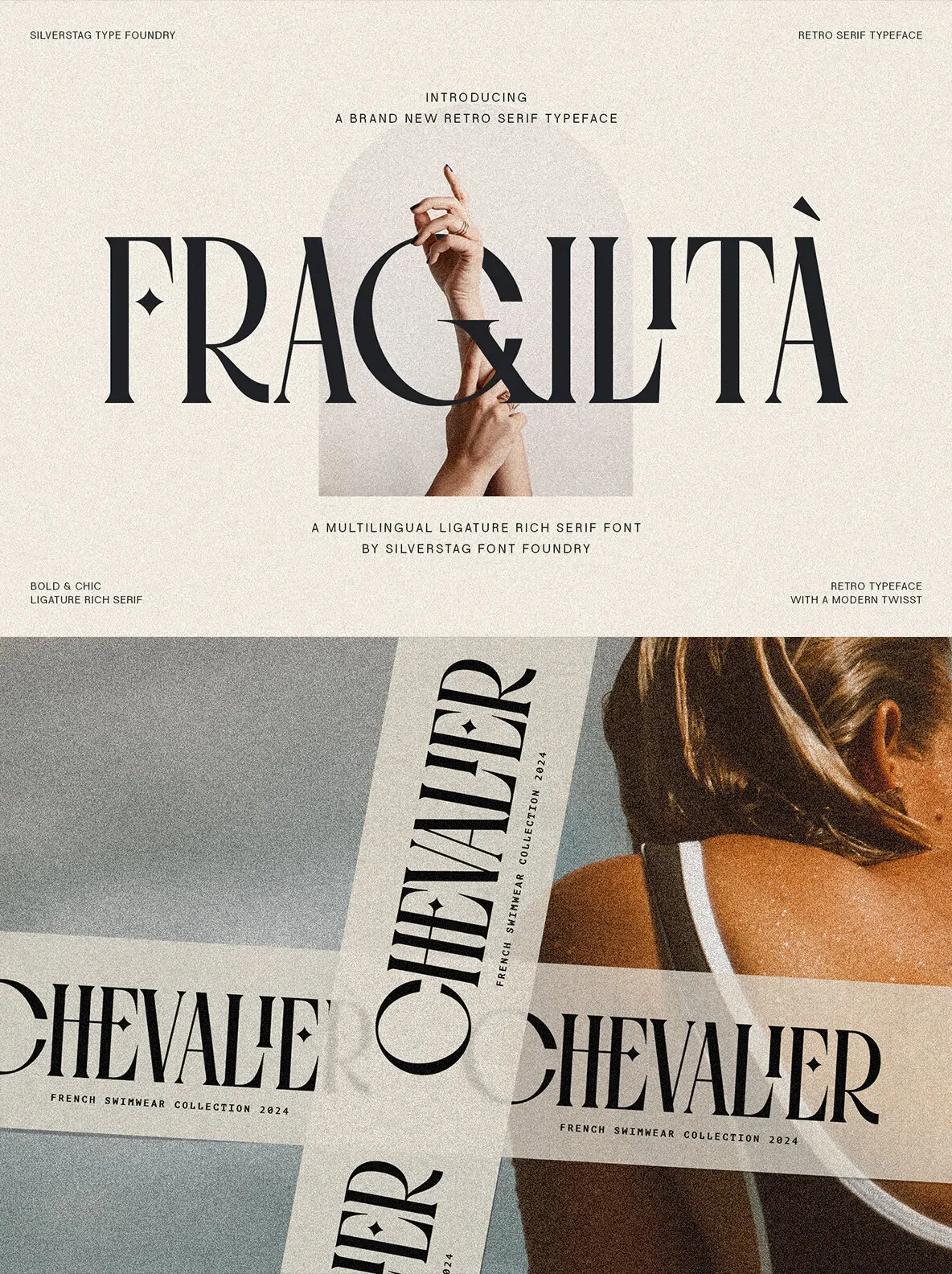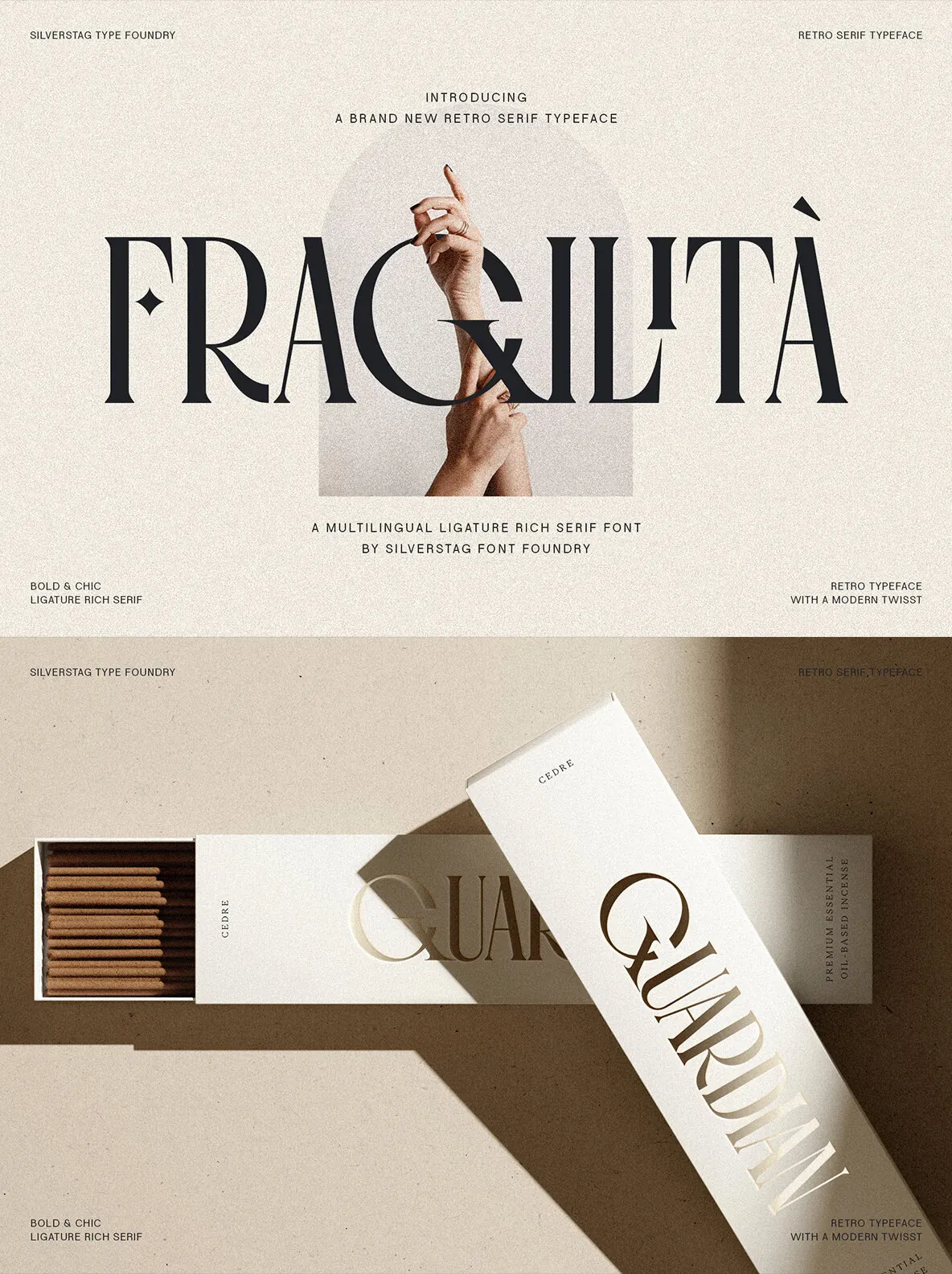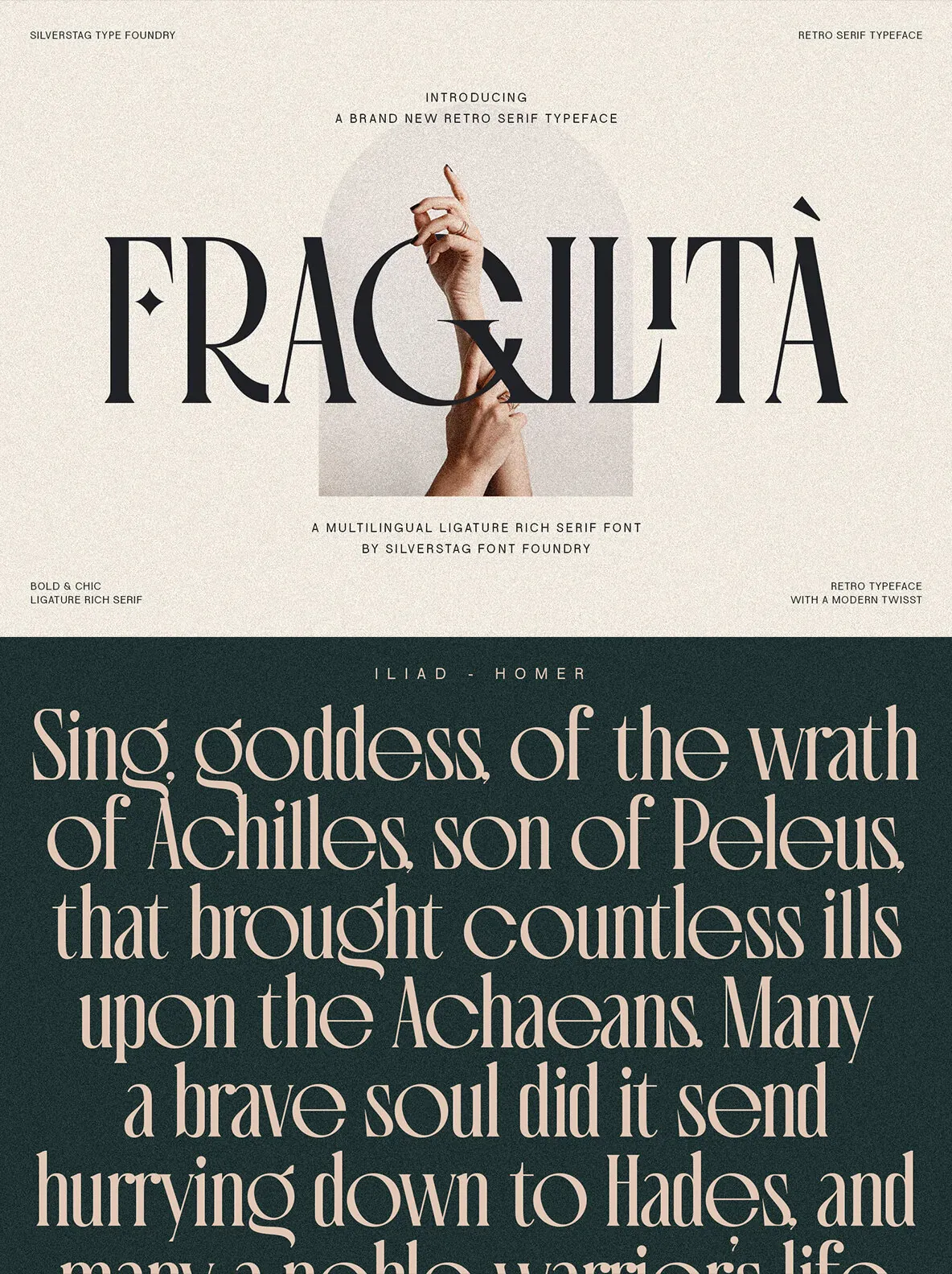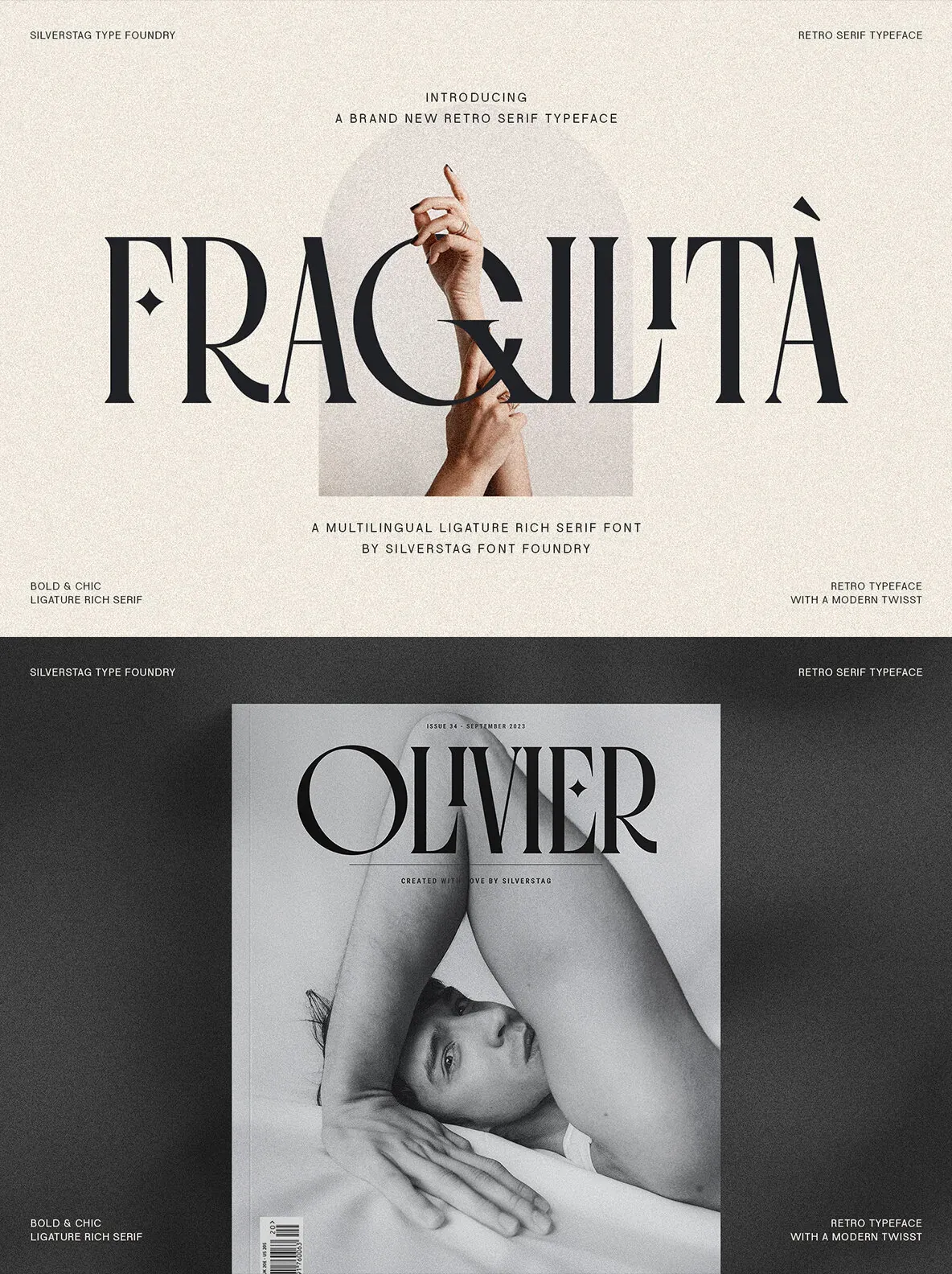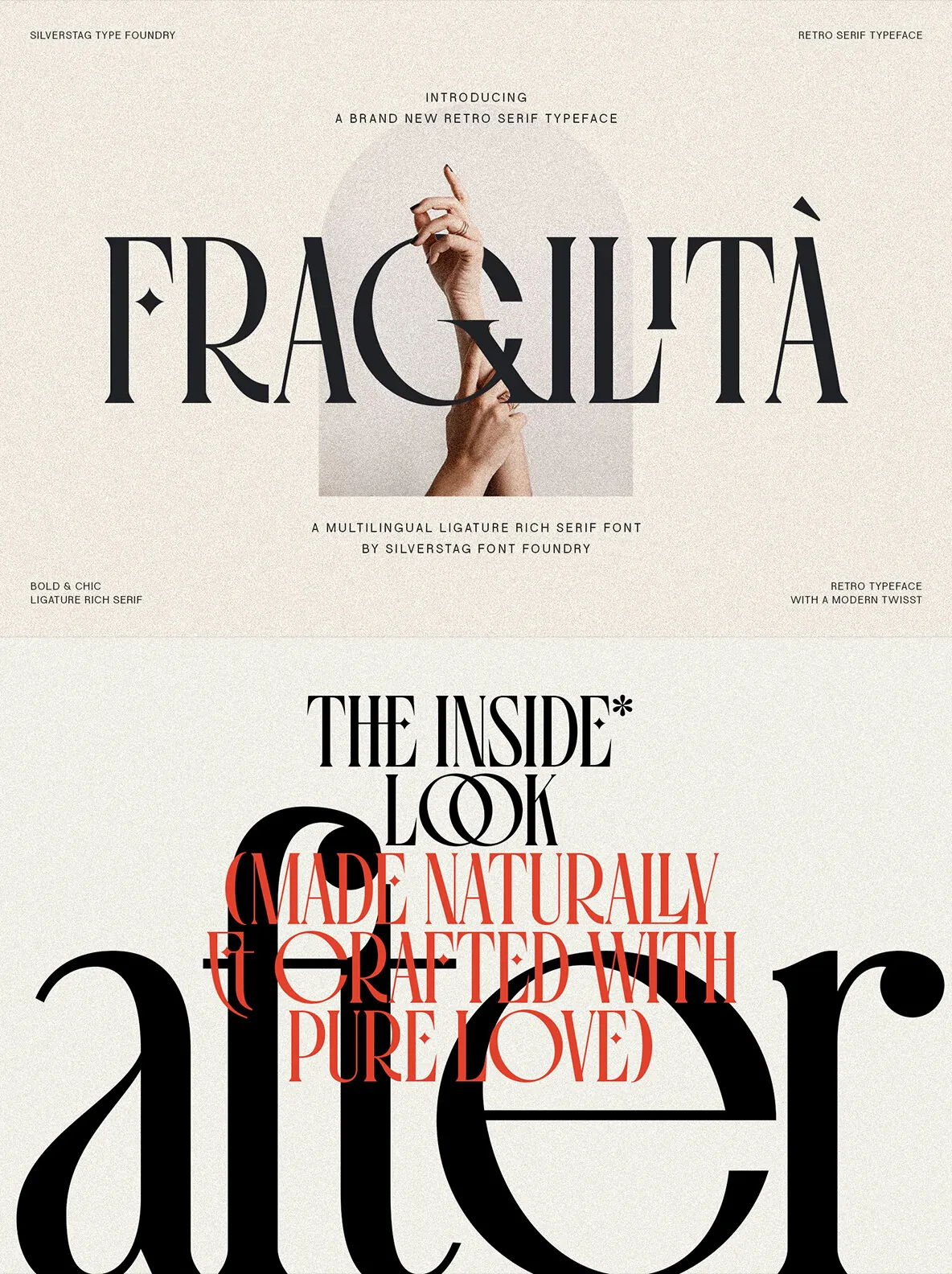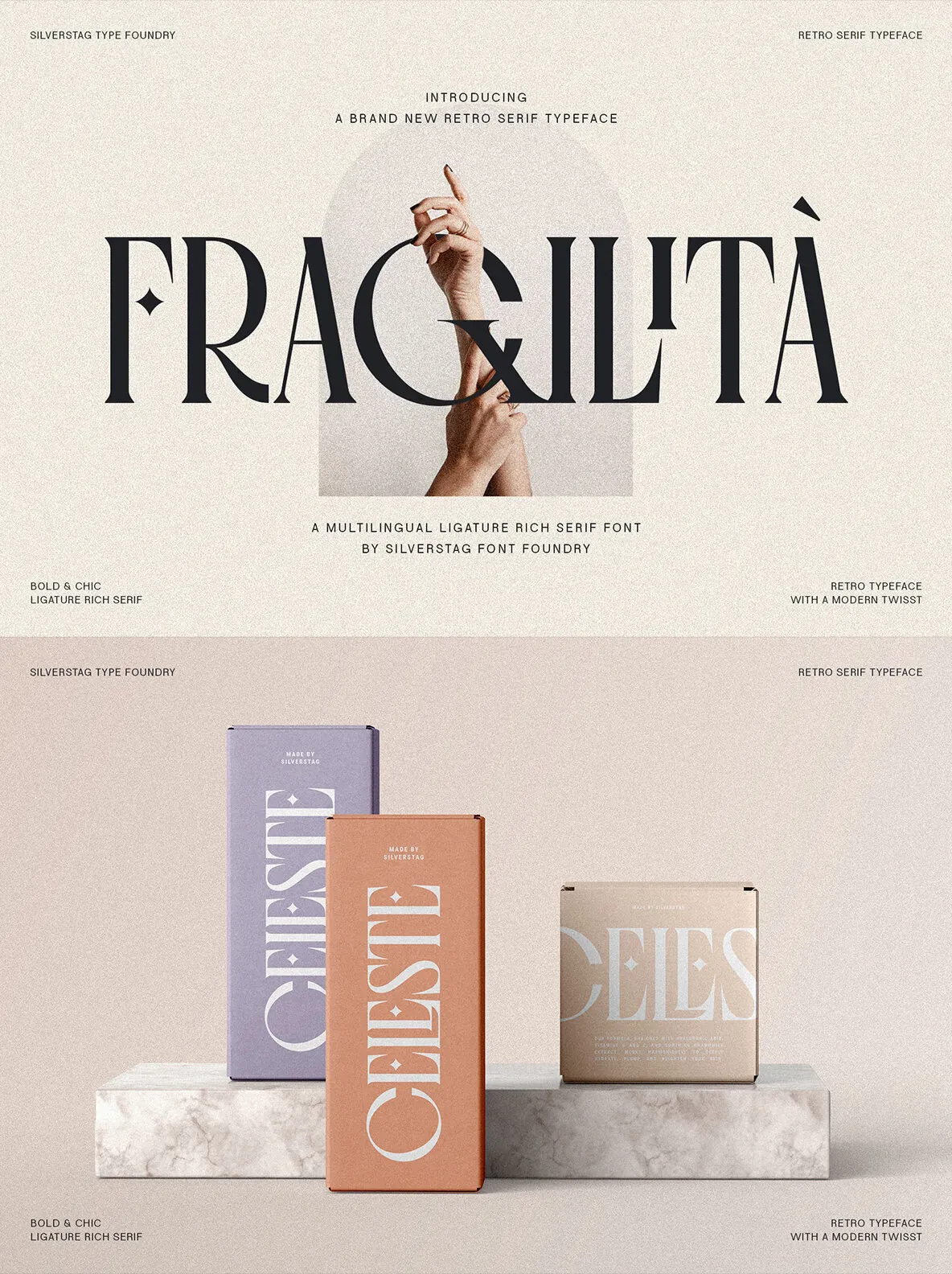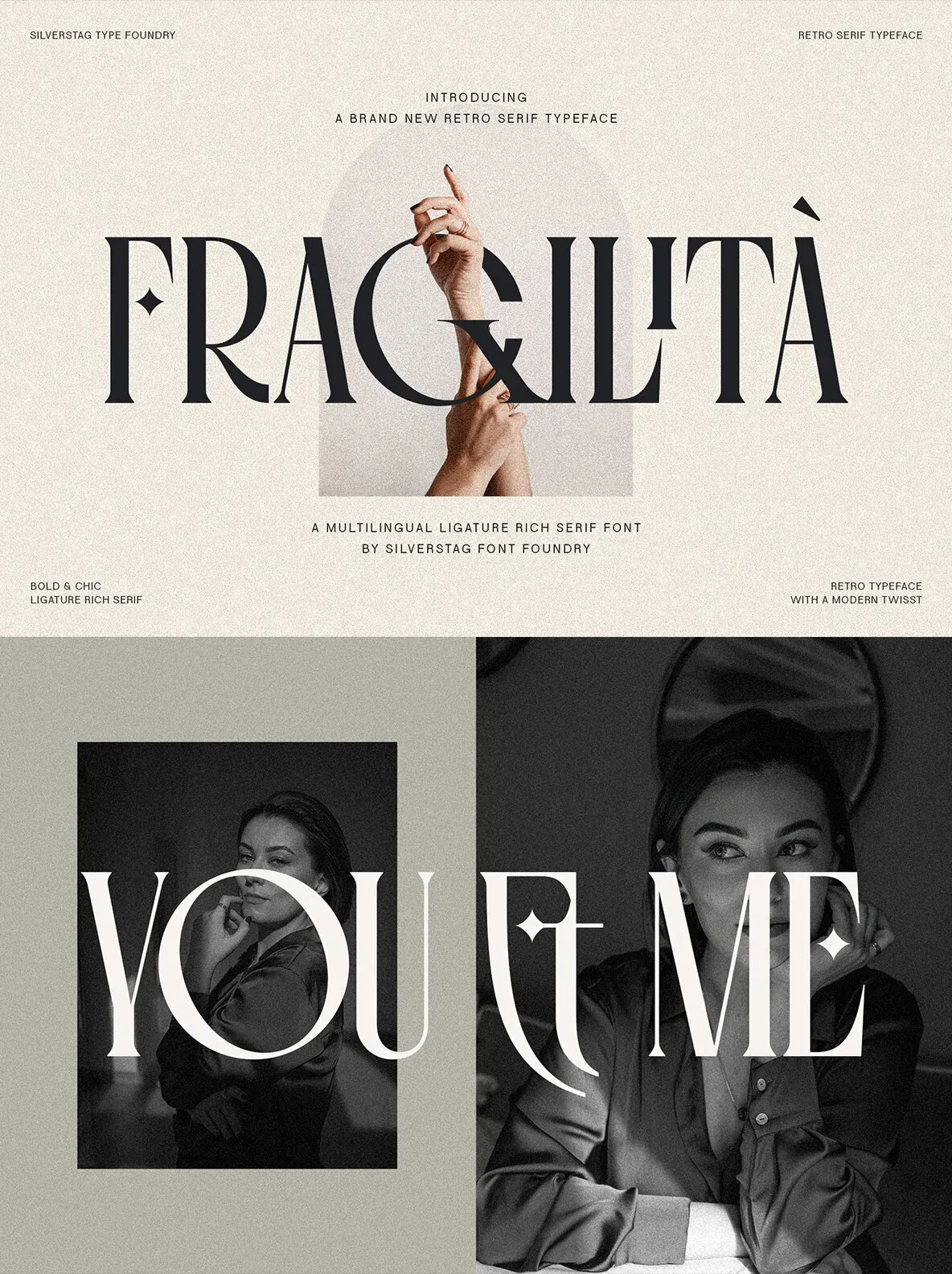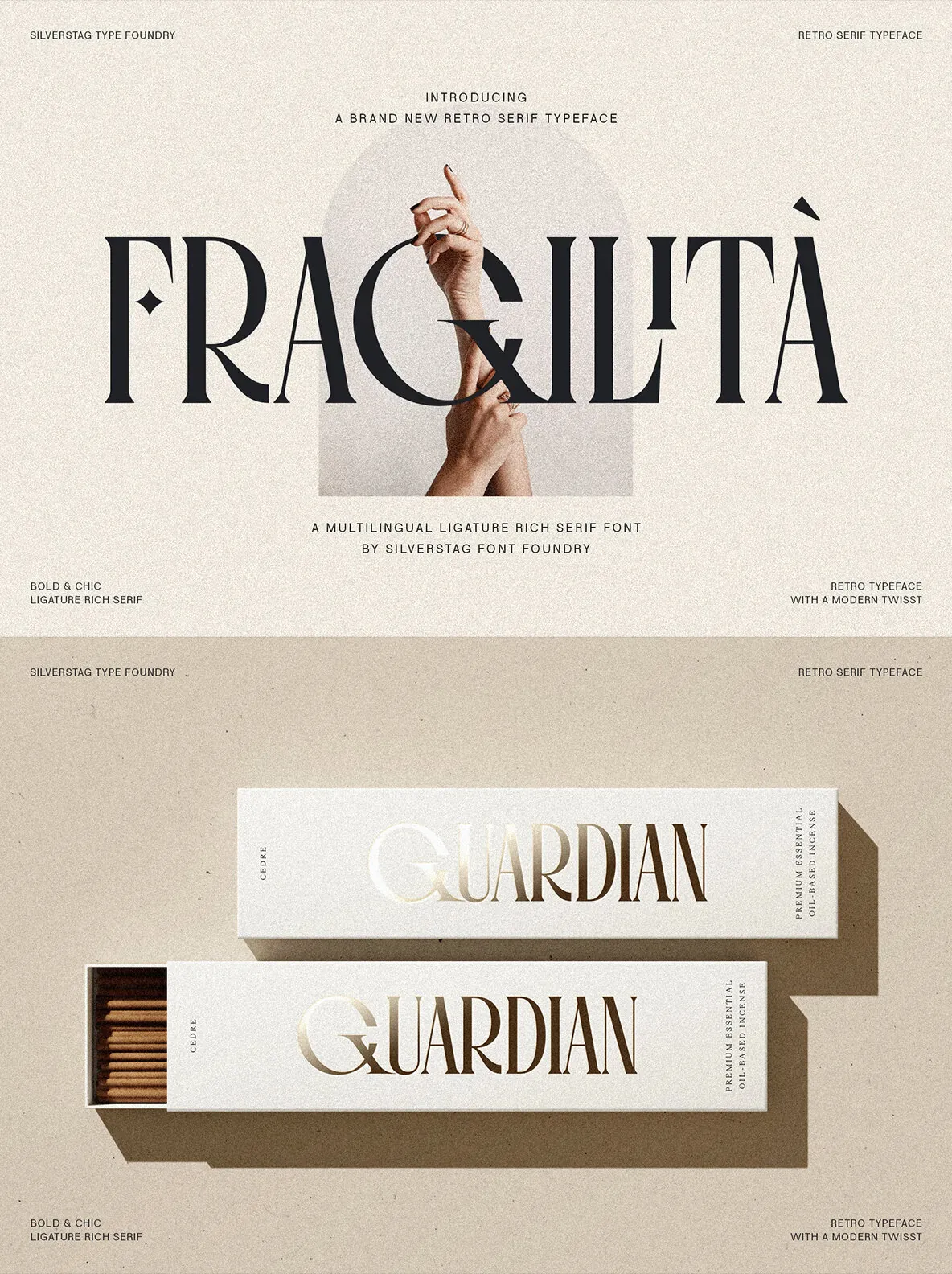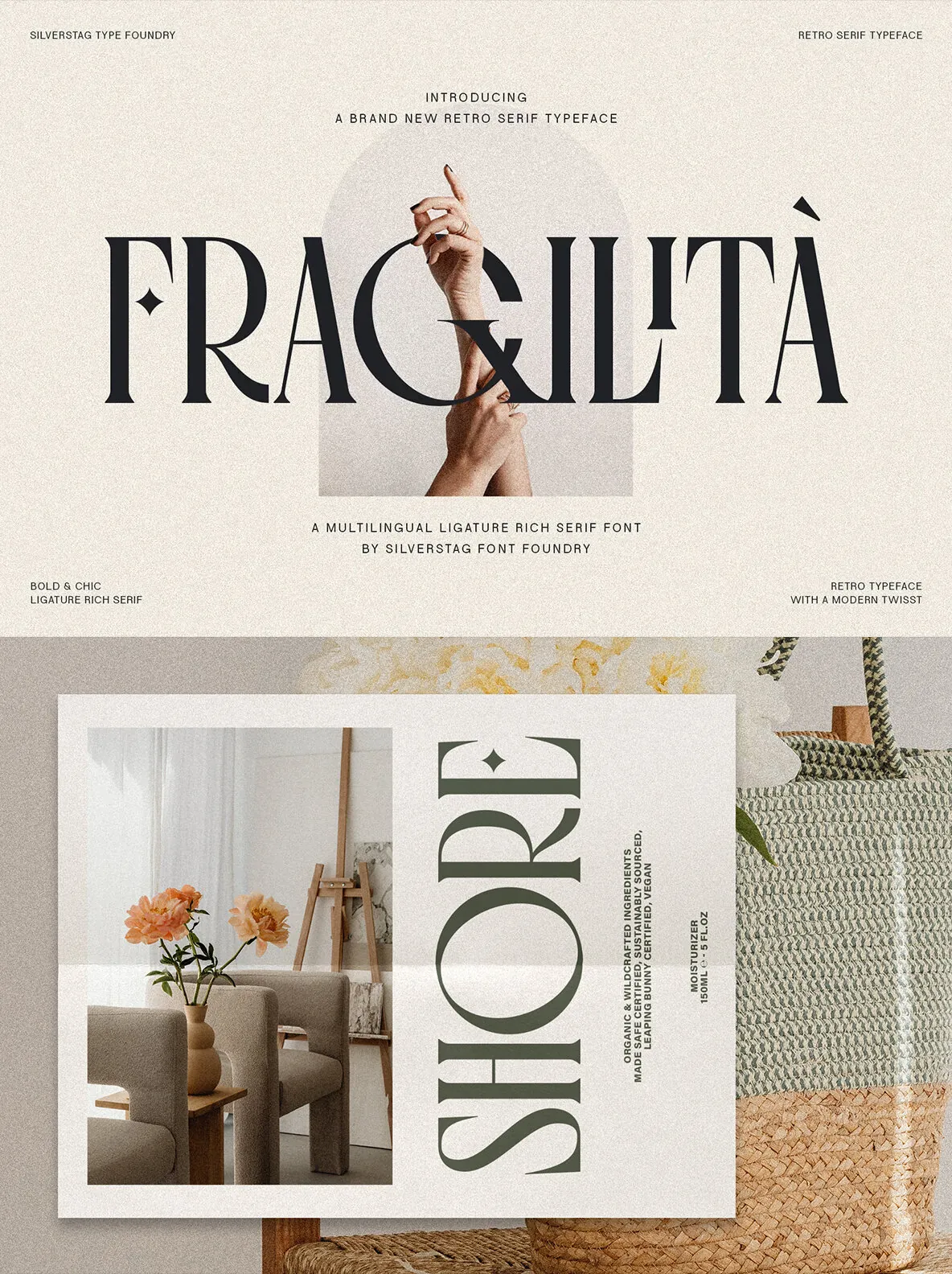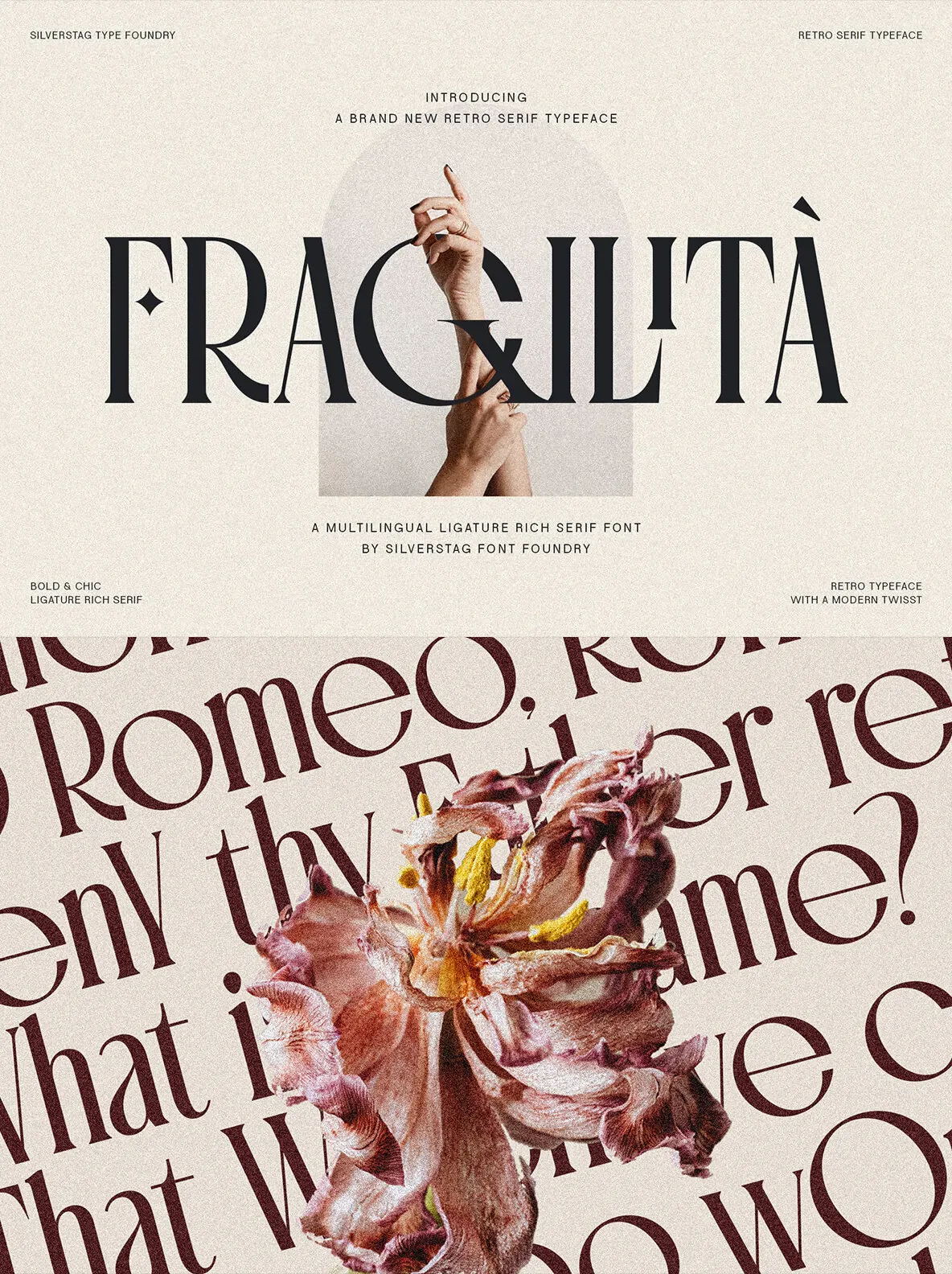
Fragilità — Poised Contrast, Quiet Drama
Introducing Fragilità, a captivating serif font that balances classic elegance with modern innovation. Its exquisitely drawn characters use high contrast and subtle ligatures to bring a refined, editorial tone to contemporary design. Fragilità blends the charm of yesterday with the spirit of today, making it a strong choice when you want a serif that feels familiar yet current.
The design mixes retro and modern aesthetics with intent. Condensed letterforms add a nostalgic note reminiscent of classic serif fonts, while the circular O, Q, and C stay fully round for a crisp, contemporary finish. The high contrast between thick and thin strokes supports exceptional readability across mediums—on book pages, websites, and digital screens—so the type stays clear where it matters.
Fragilità also includes an extensive library of ligatures that adds continuity and sophistication to text. It supports over 92 languages, helping your work travel across cultures with confidence. And at an affordable price of $24, it stays accessible for designers and creative professionals at every level. Use Fragilità for elegant body text, eye-catching headlines, and marketing materials with a timeless, modern sensibility.